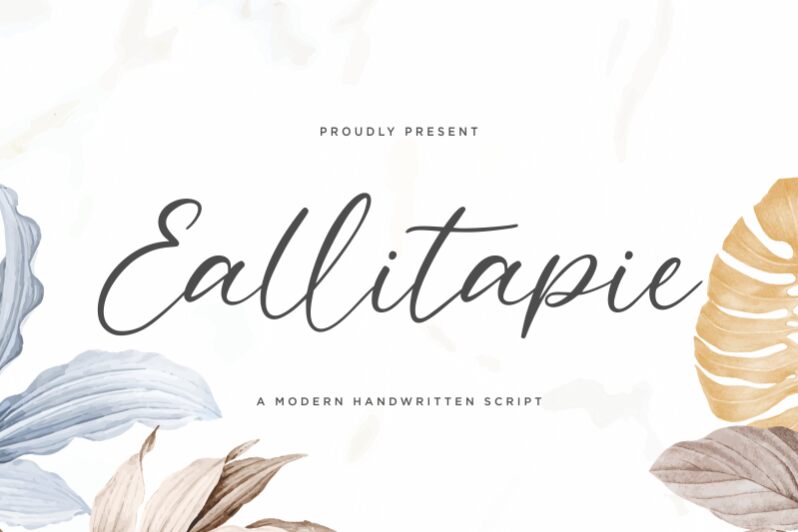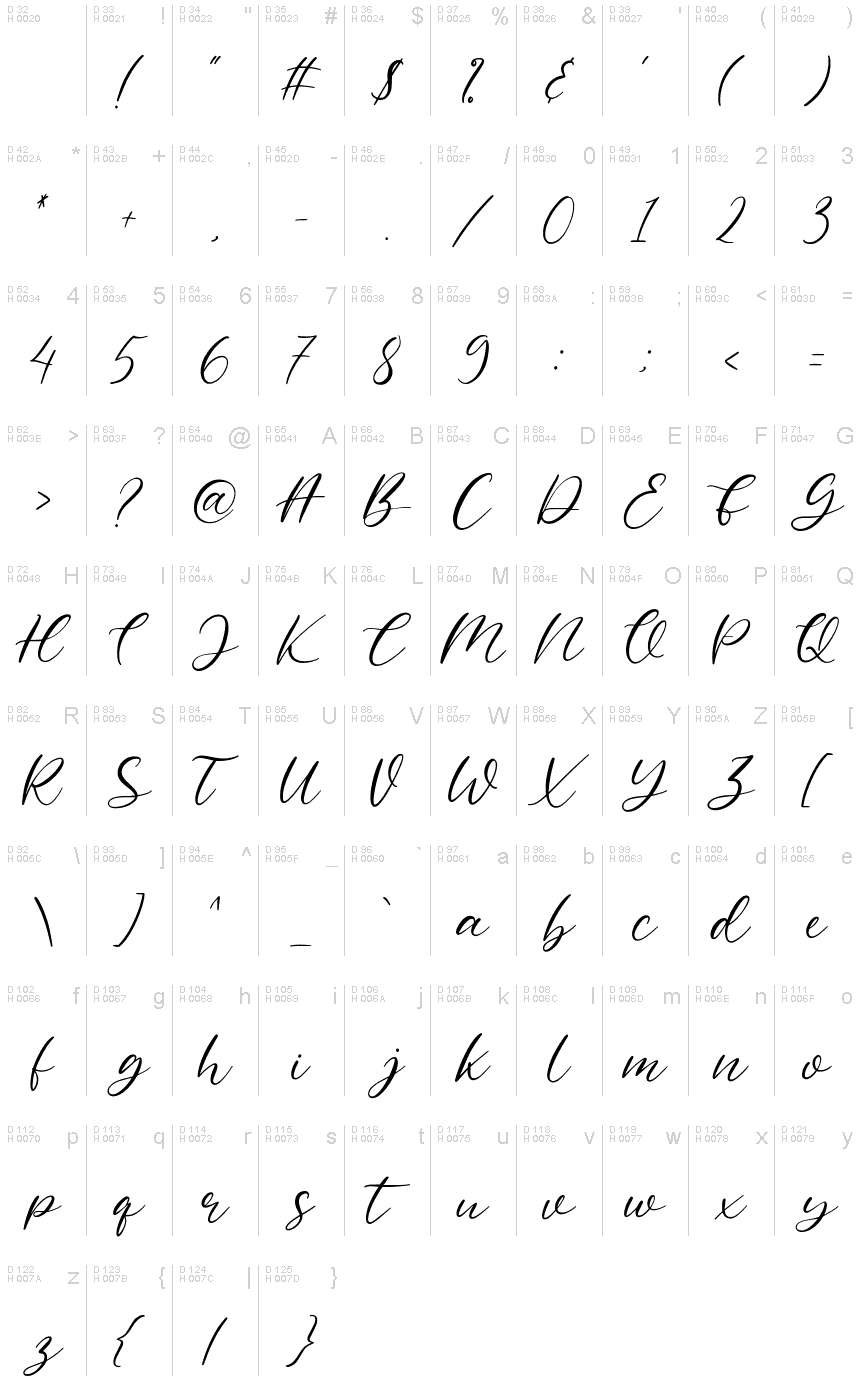
Eallitapie
Eallitapie is a modern handwritten font designed by Qwrtype Foundry. Its semi-light weight adds a delicate touch to any project, making it perfect for invitations, quotes, branding materials and more. With its natural and organic style, this font is ideal for creating designs that require a friendly and approachable feel. Whether you're designing a wedding invitation or creating social media posts, Eallitapie's unique charm will make your project stand out from the crowd. Upgrade your next design project with this elegant semi-light typeface!